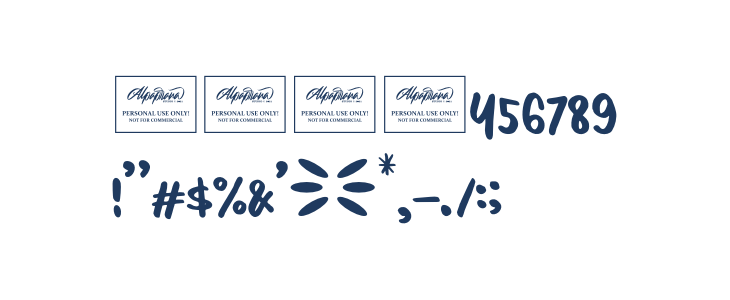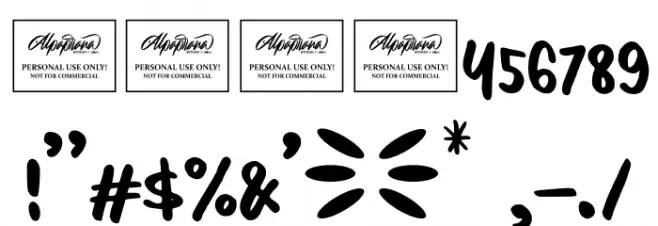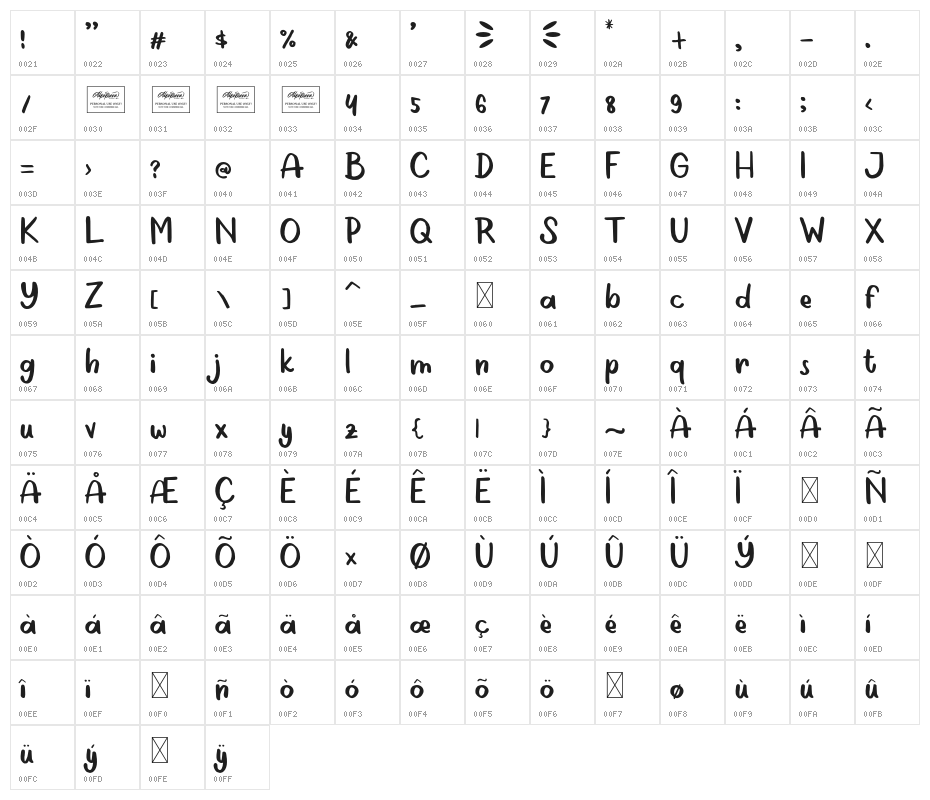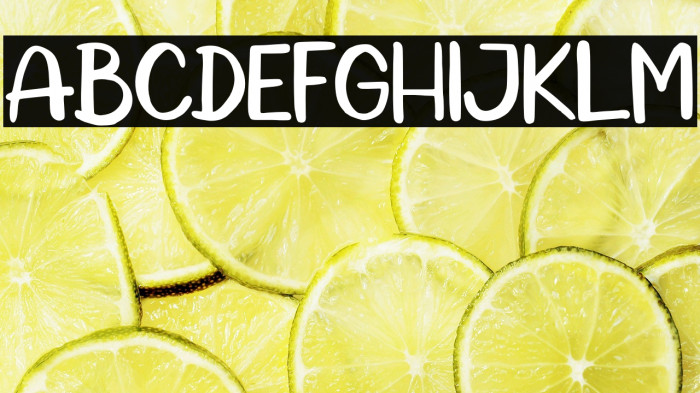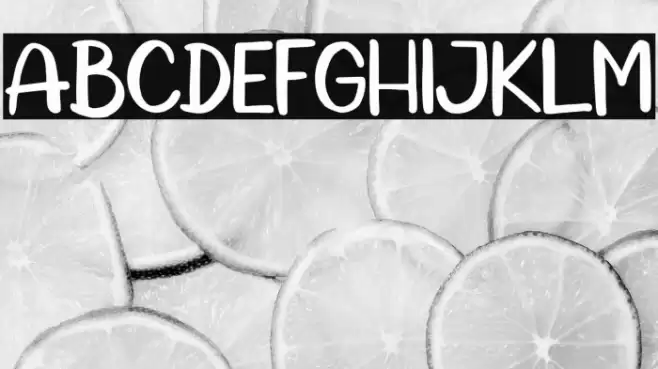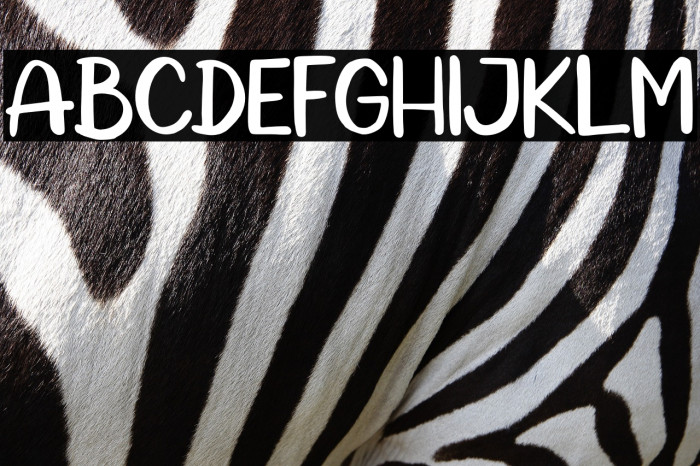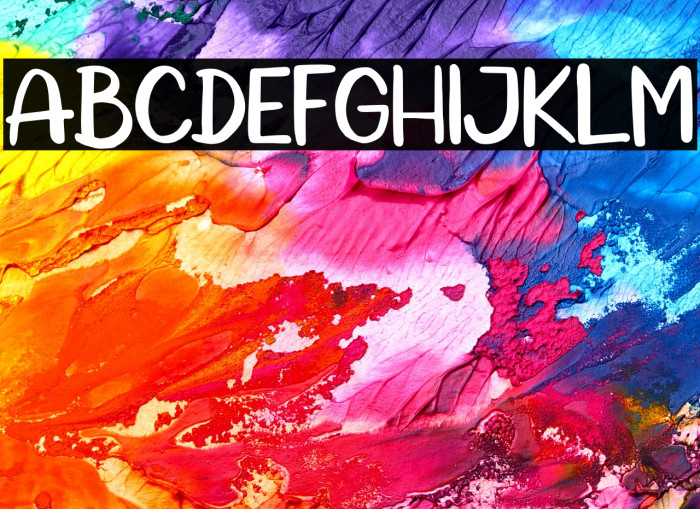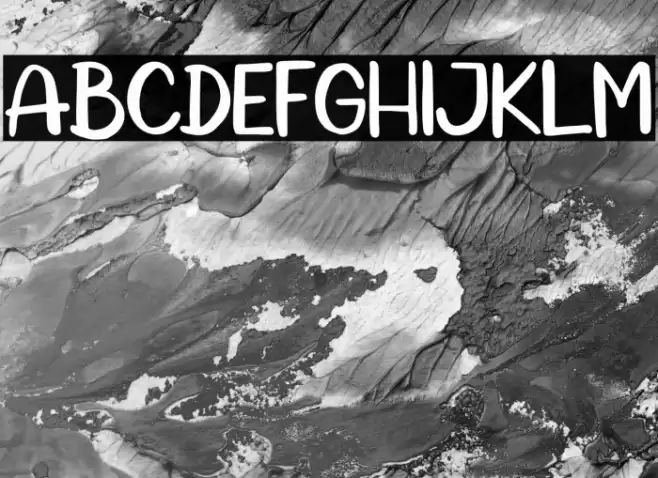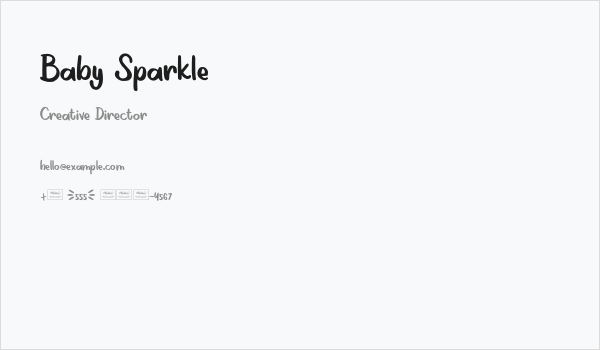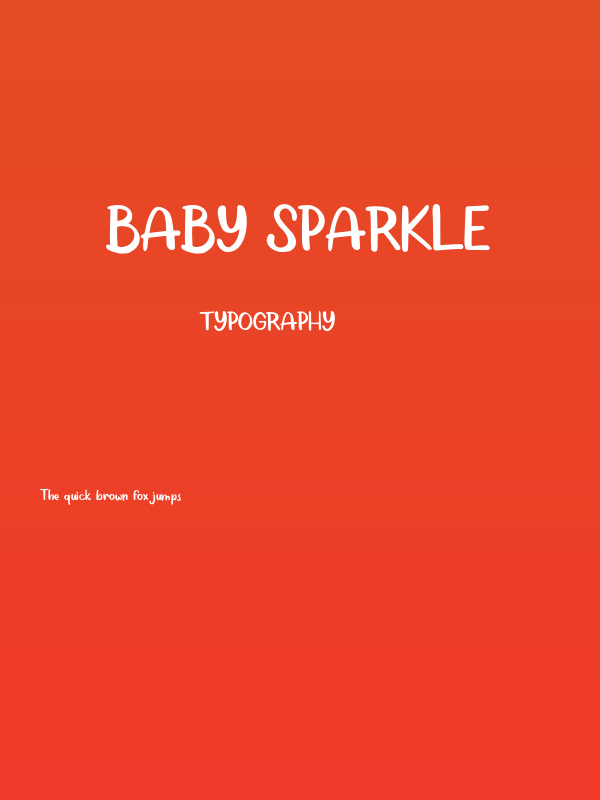
Baby Sparkle Font
Baby Sparkle Description
This playful and whimsical font features a handwritten style with a casual and friendly appearance. The letters are rounded and slightly irregular, giving it a charming and approachable feel. The uppercase and lowercase letters maintain a consistent style, with a slight slant that adds to the informal vibe. The numbers and special characters are designed to match the overall aesthetic, making it versatile for various uses. The font's unique personality makes it suitable for projects that require a touch of fun and creativity.
| Use Case | Headlines, Logos, Social media graphics |
| Proposed Projects | Ideal for children's books, greeting cards, playful branding, and social media graphics. |